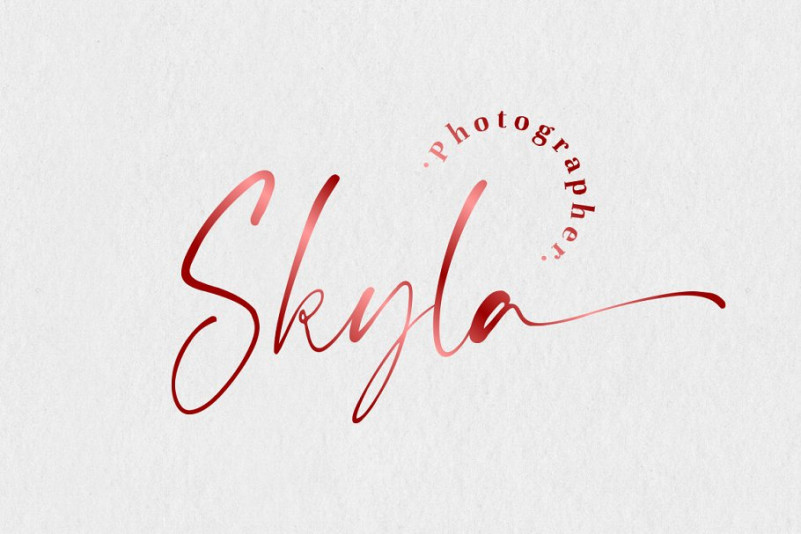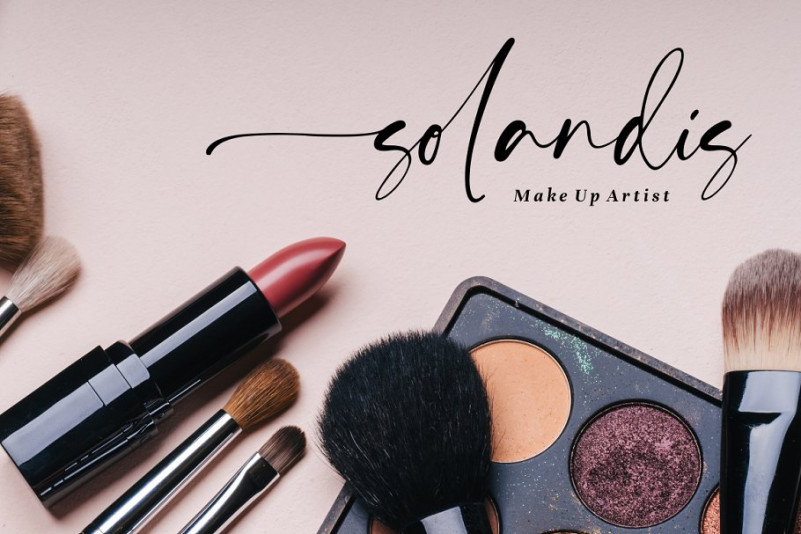
Handsnow Handlettered Font
A lovely natural handwriting font by Sronstudio. Every single letter has been carefully crafted to make your text look beautiful. With a modern script style this font will be perfect for many different projects! Introducing Handsnow Font. It’s a beautiful calligraphy font perfect for branding, invitation, stationery, wedding designs, social media posts, advertisements, product packaging, product designs, label, photography, watermark, special events or anything.